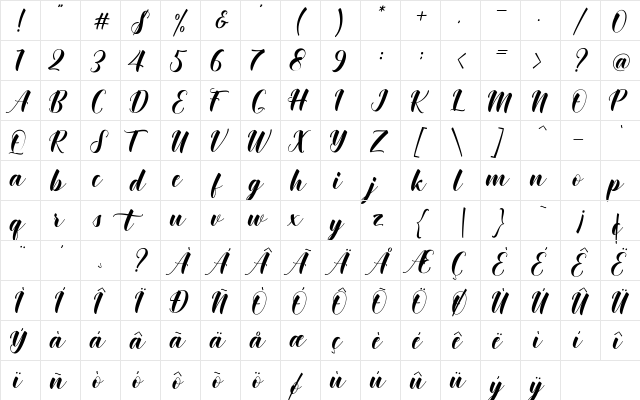
Khinta Script Regular
| Foundry | Juni Fadil Putra |
| Designer | Juni Fadil Putra |
Design Context for Khinta Script Typeface
Khinta Script brings a calligraphic fluidity to the page — its connecting strokes and expressive curves give it an unmistakably human quality.
Font Pairing: Combine Khinta Script with a simple geometric sans for maximum contrast — the tension between flowing curves and clean structure is a classic typographic pairing.
Pro Tip: Pair Khinta Script with a clean sans-serif for supporting text. The contrast between fluid script and geometric structure creates an elegant typographic hierarchy.